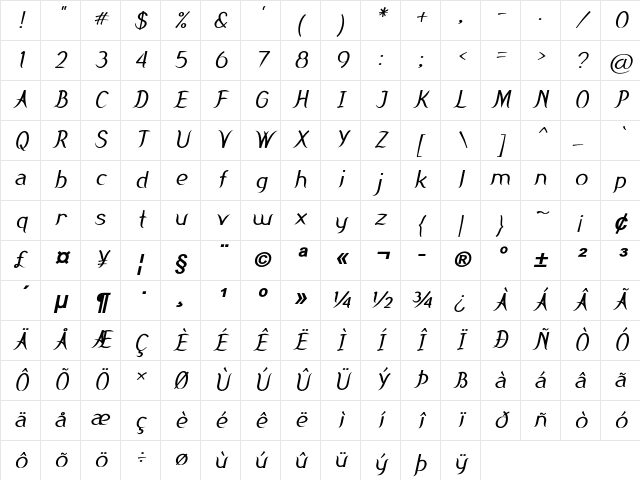
Palavio is a composed and adaptable typeface that performs quietly and consistently across a wide range of design contexts. The slanted form adds forward momentum and visual energy. Its bold stroke weight gives it real presence on the page.
Pro Tip: Use Palavio for emphasis, pull quotes, and subheadings where its slanted energy can add rhythm to the layout.